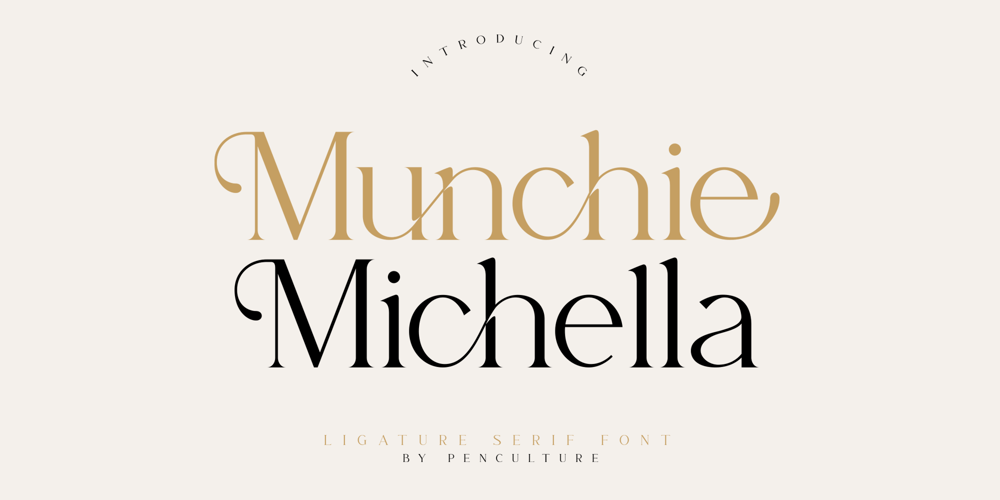
Munchie Michella Font Family was designed by Revo Farsiky and published by Pen Culture. Munchie Michella contains 1 styles and family package options. Proudly present “Munchie Michella // Ligature Serif Font”Munchie Michella is a modern serif font that has a ton of awesome and unique ligatures. Not only that, this font also comes with beautiful alternate which is very suitable and easy to use for various design projects. Some design projects that match this font include branding, logo design, posters, social media, web design and many more.I really hope you enjoy it – please do let me know what you think, comments & likes are always hugely welcomed and appreciated. More importantly, please don’t hesitate to drop me a message if you have any issues or queries.Thank you